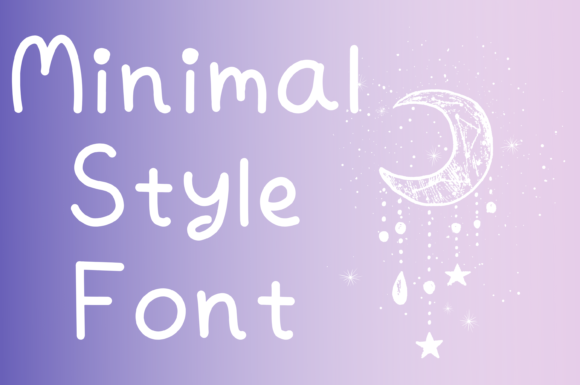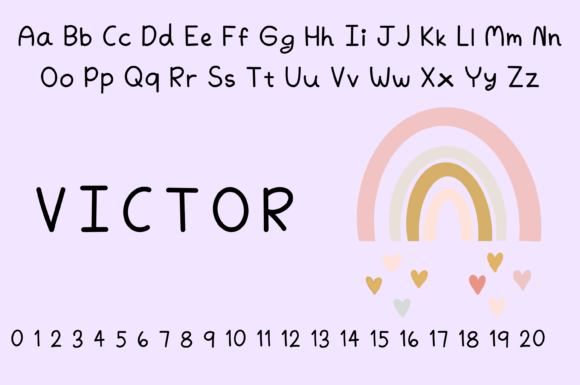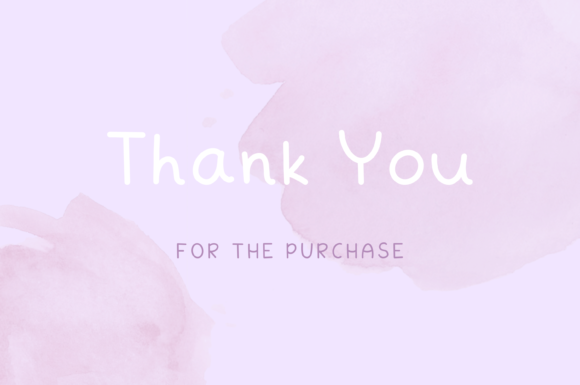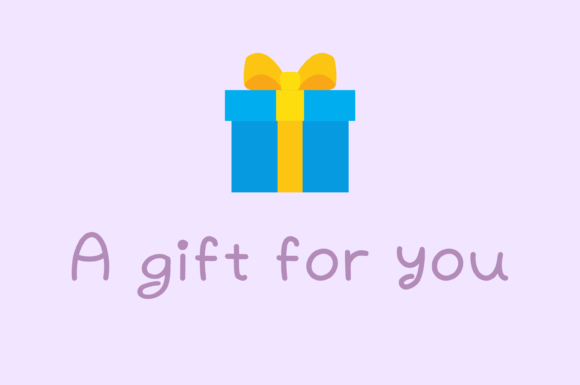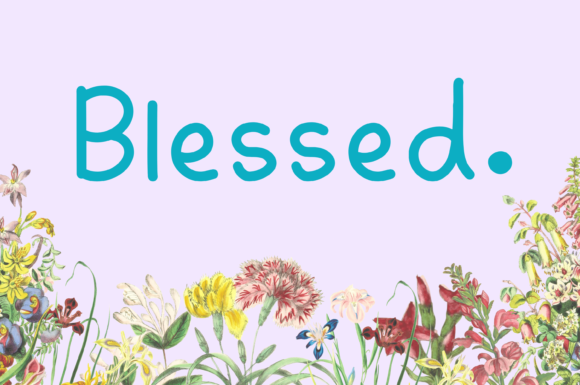
About Minimal Style Font
Minimal Style is a minimalistic and neat handwritten font. It can easily be matched to a large set of projects, so add it to your creative ideas and notice how it makes them stand out!